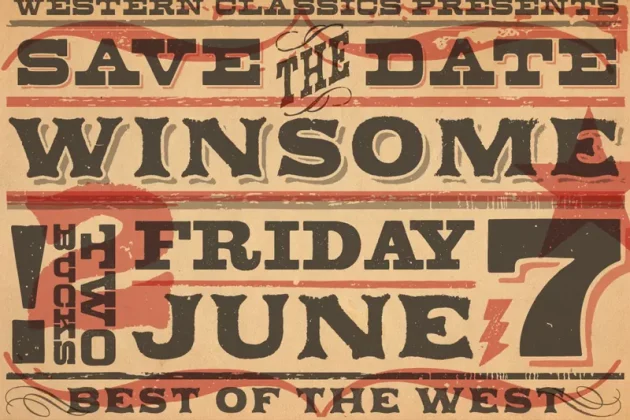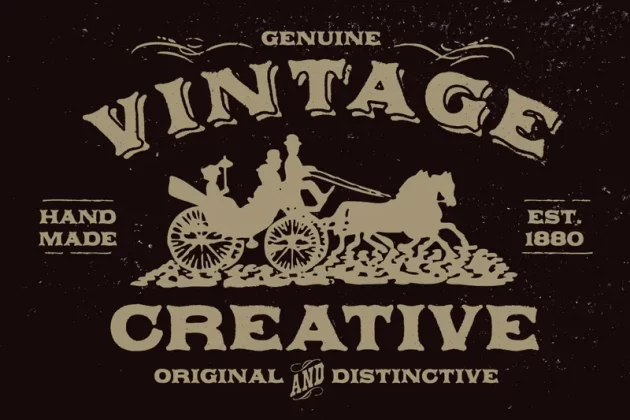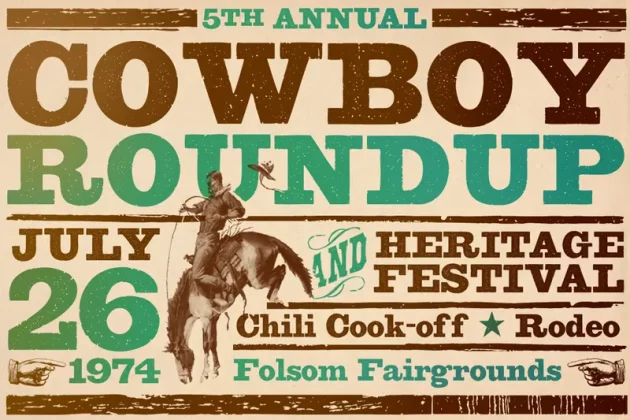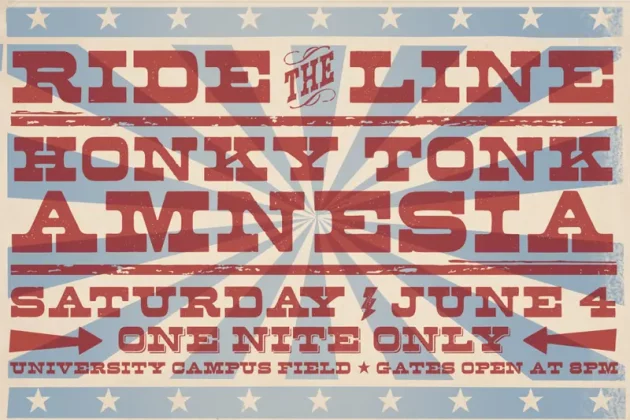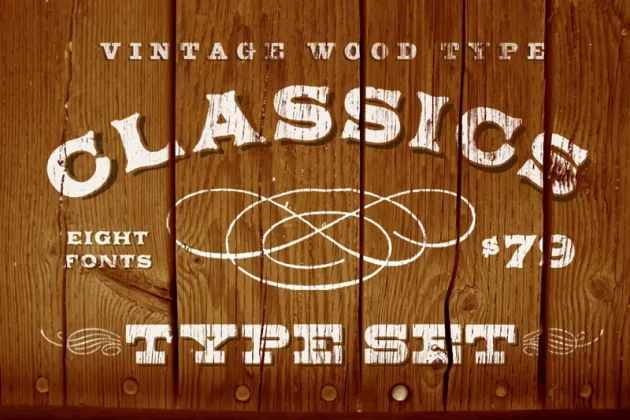
About Vintage Wood Type Classics Font
The Vintage Wood Type Classics set contains the Applewood, Bootstrap and Buckboard families.
With its distinctive imperfections and old fashioned sensibility, Applewood imparts a unique flavor to your project. The Applewood family uses OpenType features to substitute a unique pairing of characters when any upper or lower case letter is keyed twice in a row, as well as features for Old Style Numerals and Small Caps. The Applewood Shadow font can be overlapped with Applewood Alternate to color the drop shadow separately. See more http://crtv.mk/ifOR
Nothing says Wild West like a good ole authentic wood type font with its original patina. The Buckboard fonts have OpenType ligature features that substitute a unique pairing of characters when any letter is keyed twice in a row, as well as features for Old Style Numerals and Small Caps. The Buckboard Shadow font can be overlapped with Buckboard Regular to color the drop shadow separately. See more http://crtv.mk/ieLB
Broken in but none the worse for wear, Bootstrap and less distressed companion Bootstrap Alternate each have OpenType features that automatically substitute a unique pair of characters when any upper or lower case letter is keyed twice in a row, as well as features for Old Style Numerals and Small Caps. See more http://crtv.mk/fdHq